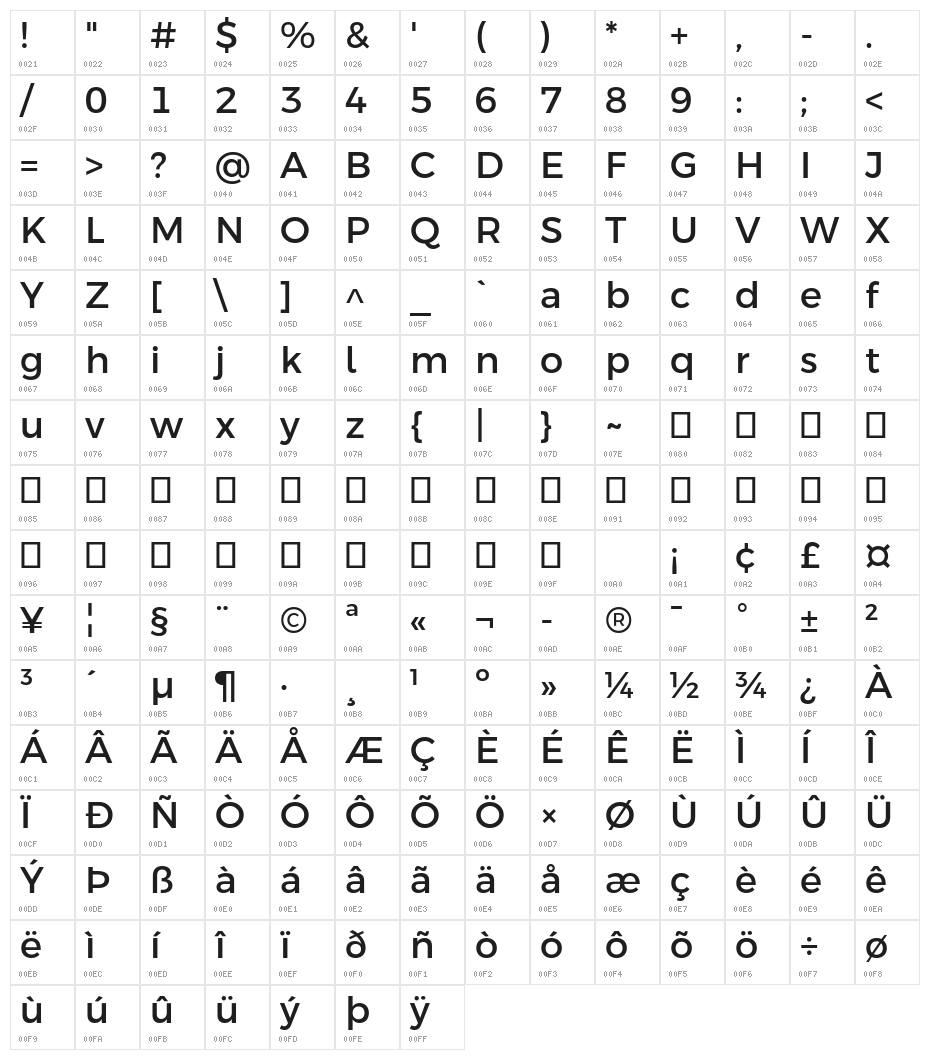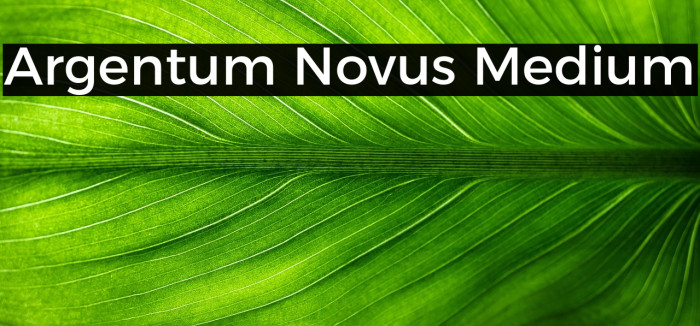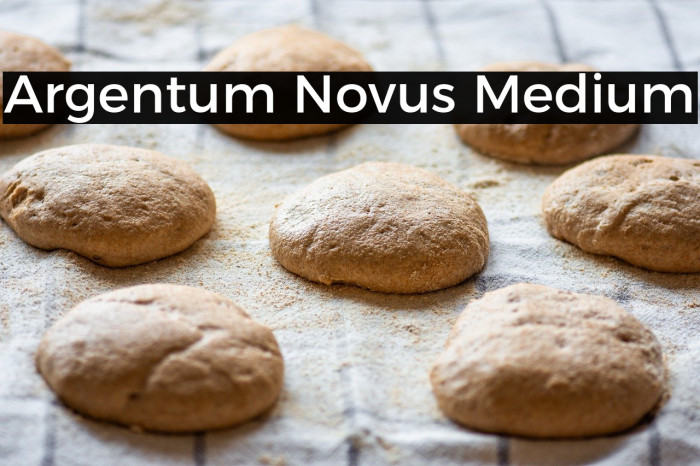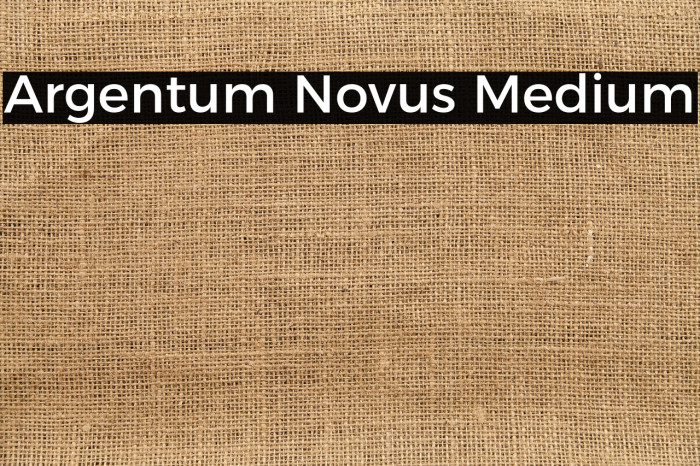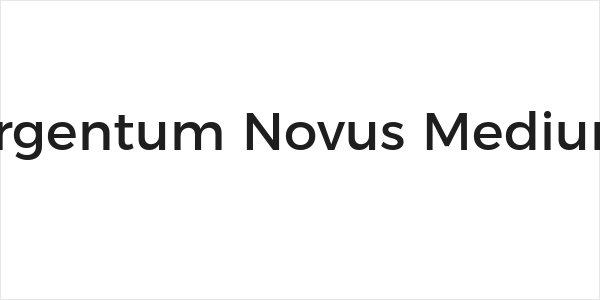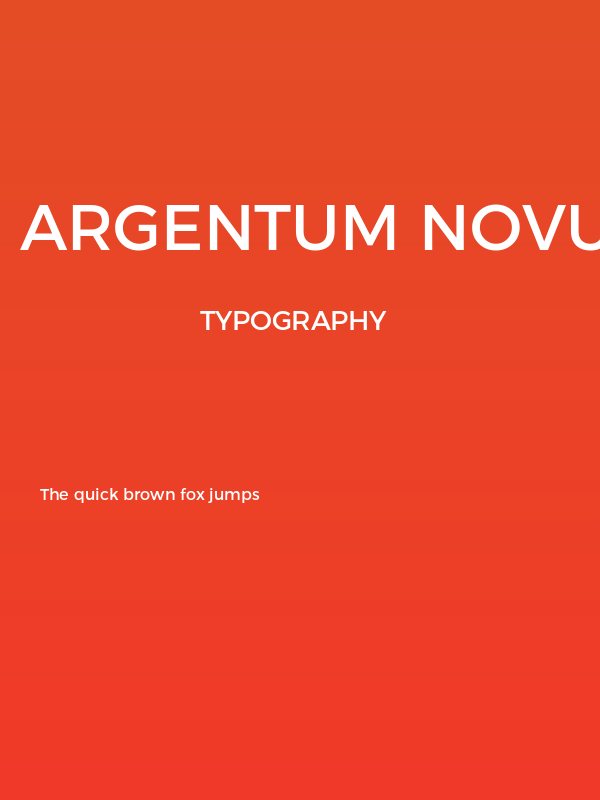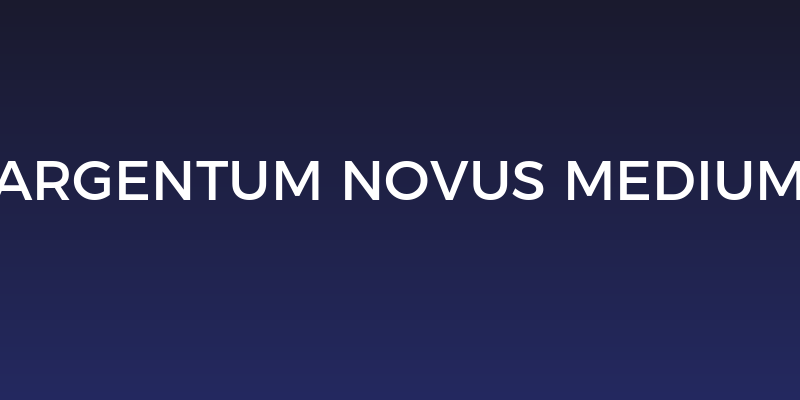
Argentum Novus Medium Font
Argentum Novus Medium Description
This font features a clean and modern sans-serif design with uniform stroke widths, providing a balanced and harmonious appearance. The characters are well-proportioned, with a slightly rounded finish that adds a touch of softness to the overall look. The uppercase letters are bold and commanding, while the lowercase letters maintain a consistent height, ensuring readability. The numerals are clear and distinct, making them suitable for both digital and print applications. Special characters are crafted with precision, maintaining the font's cohesive style.